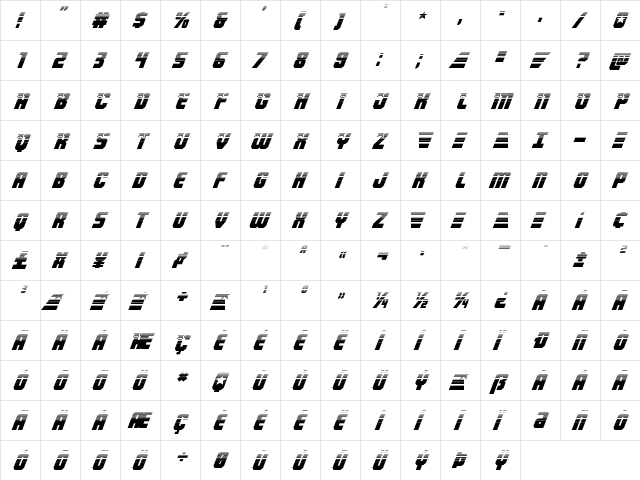
Army Rangers Half-Tone Italic Italic
Design Context for Army Rangers Half-Tone Italic Typeface
Army Rangers Half-Tone Italic draws on military and industrial lettering traditions, with forms that communicate strength and precision. The slanted form adds forward momentum and visual energy.
Designed for tactical branding, military-inspired apparel, action game UI, and utility-focused signage.
Pro Tip: Use Army Rangers Half-Tone Italic at medium-to-large sizes where its utilitarian structure can be appreciated — the character detail gets lost at small sizes.